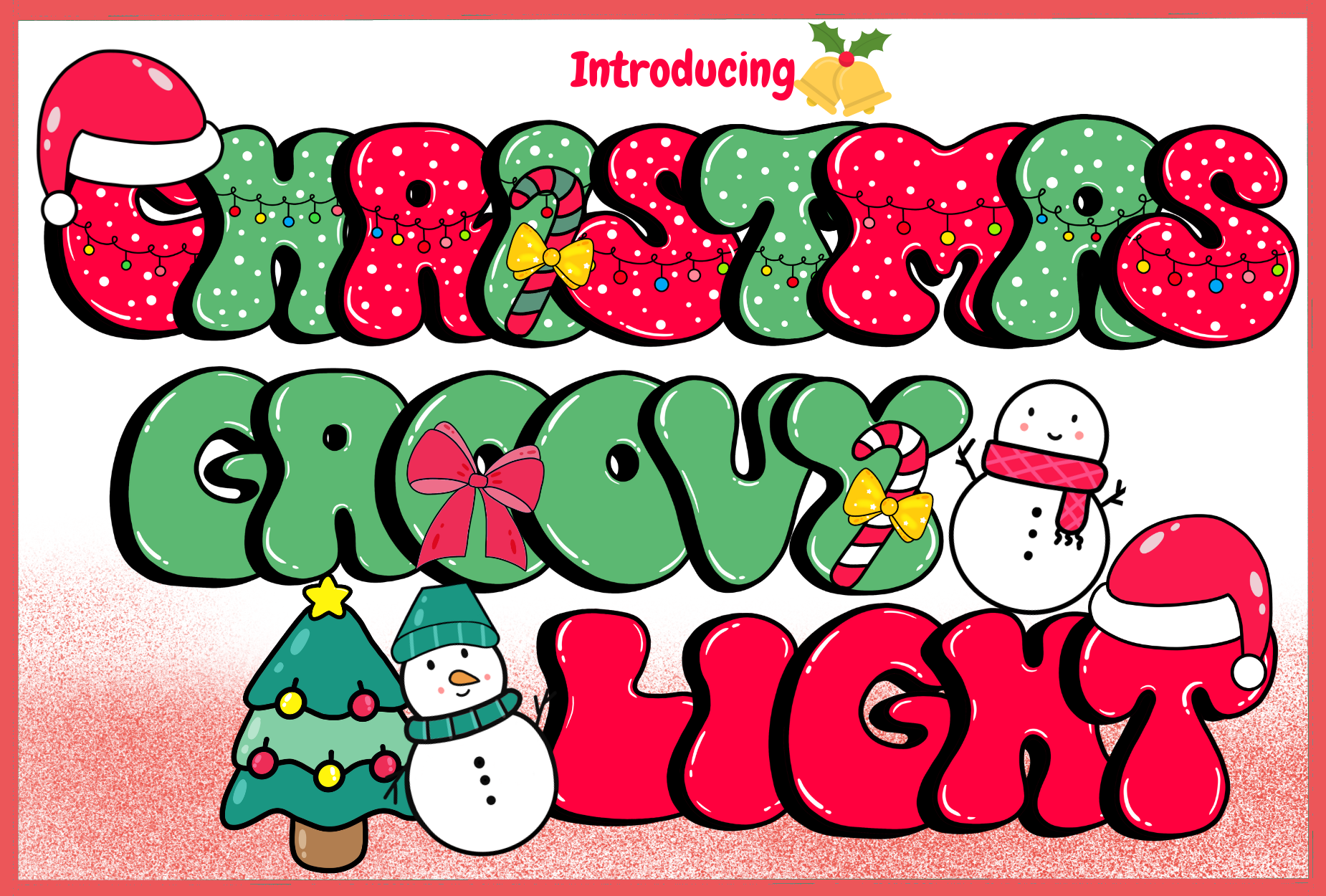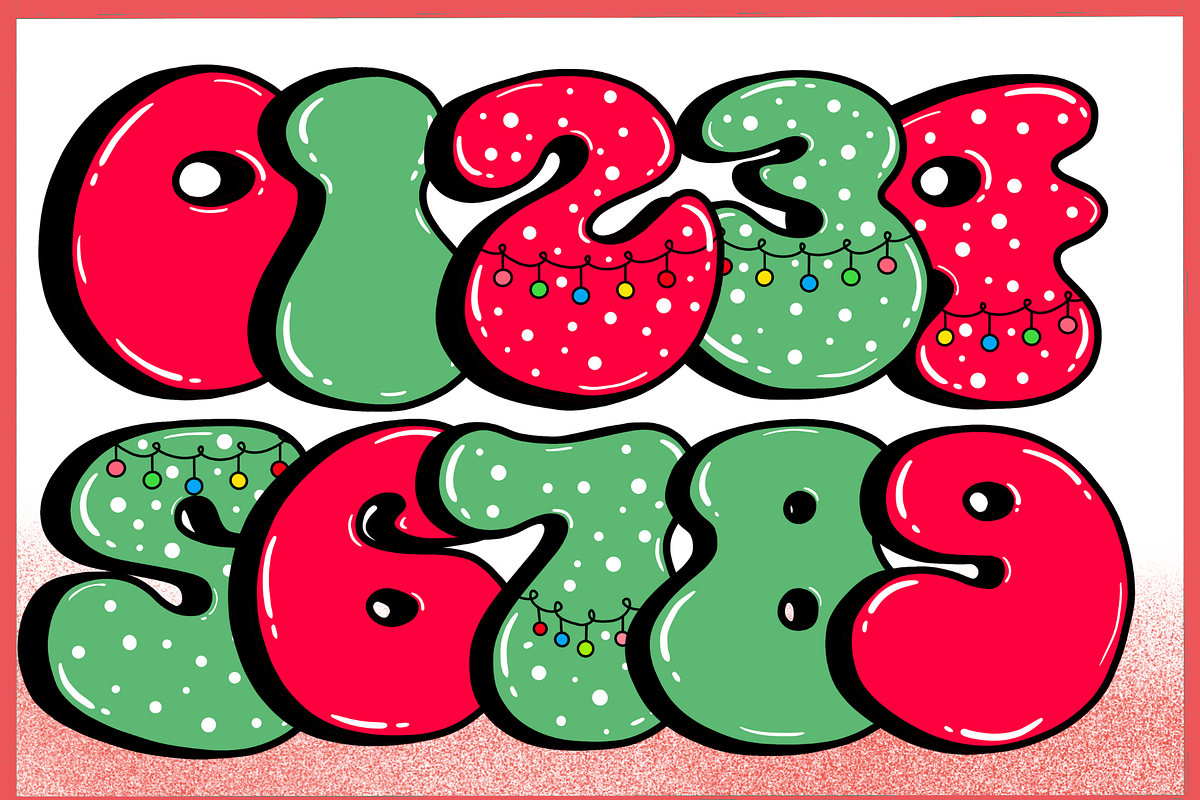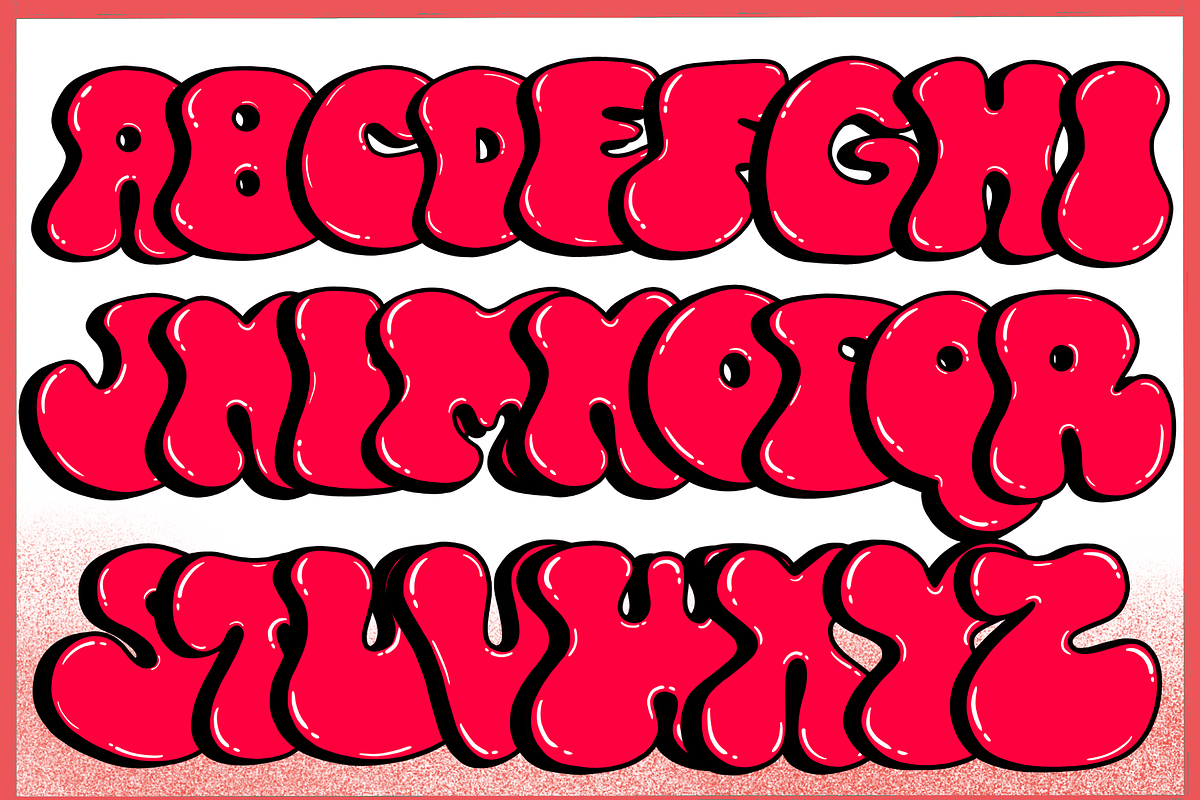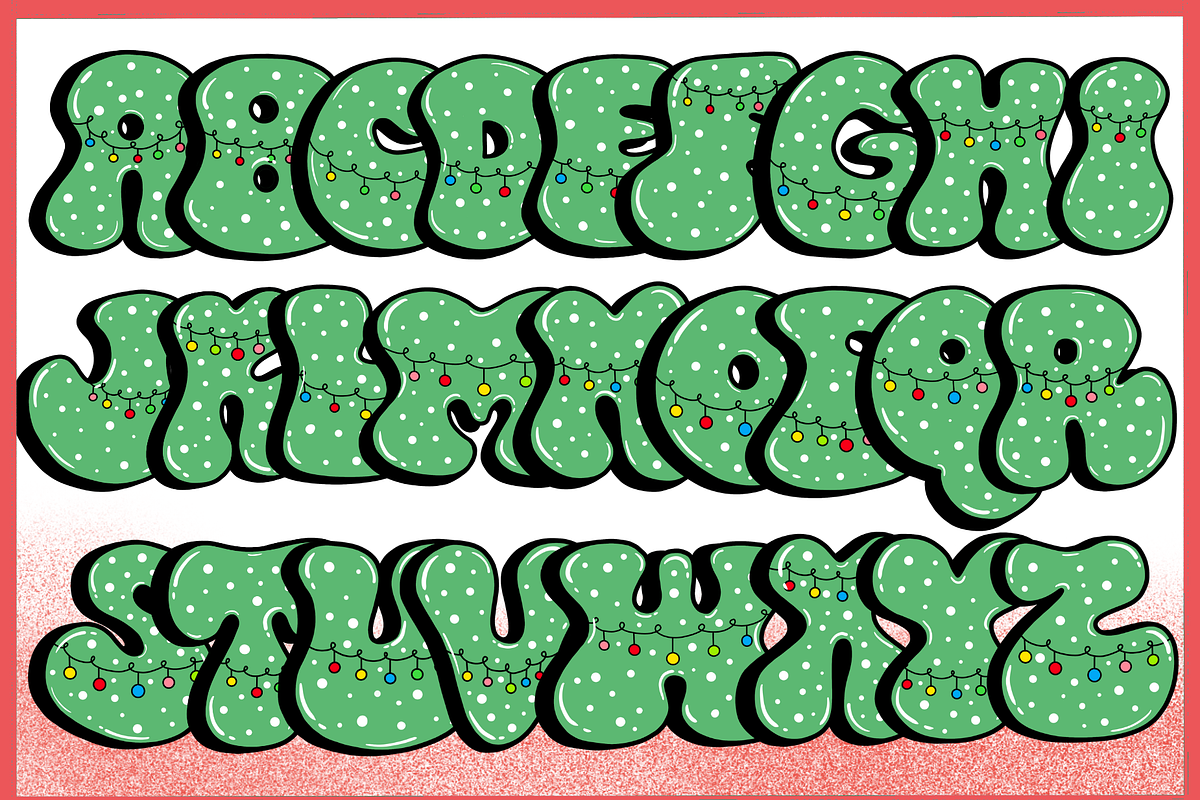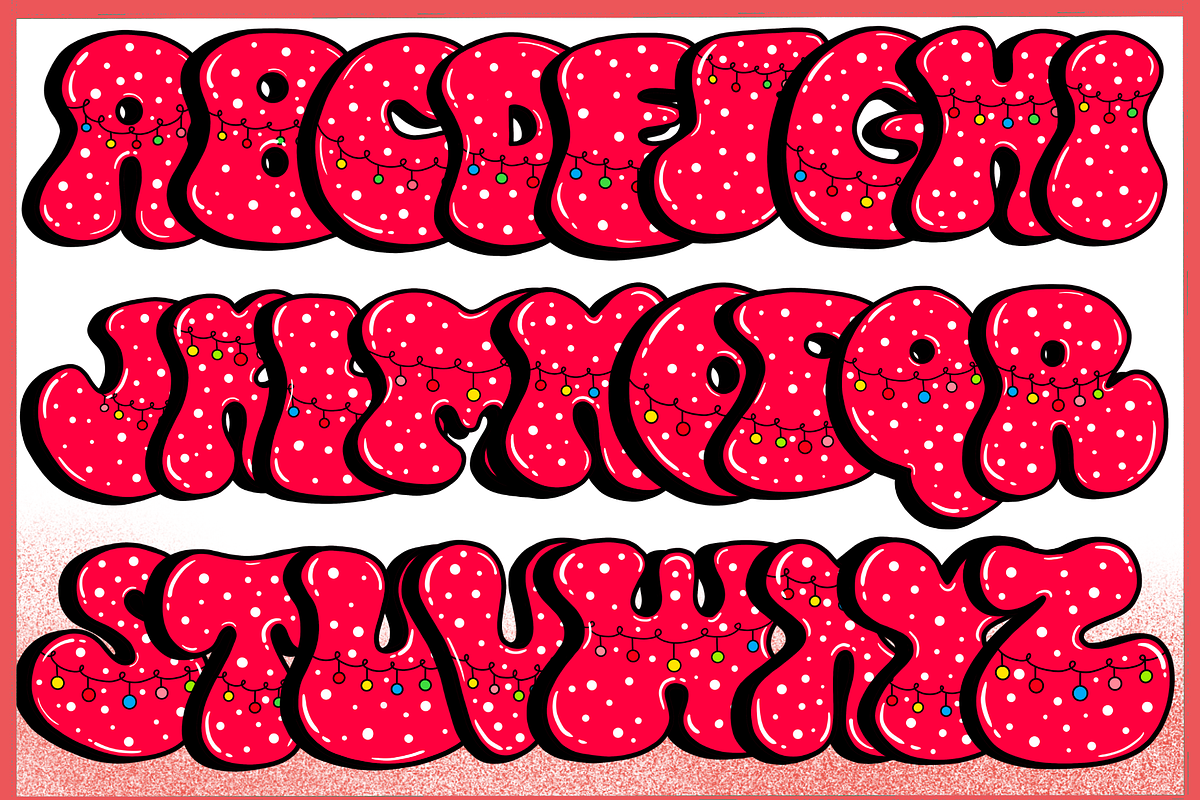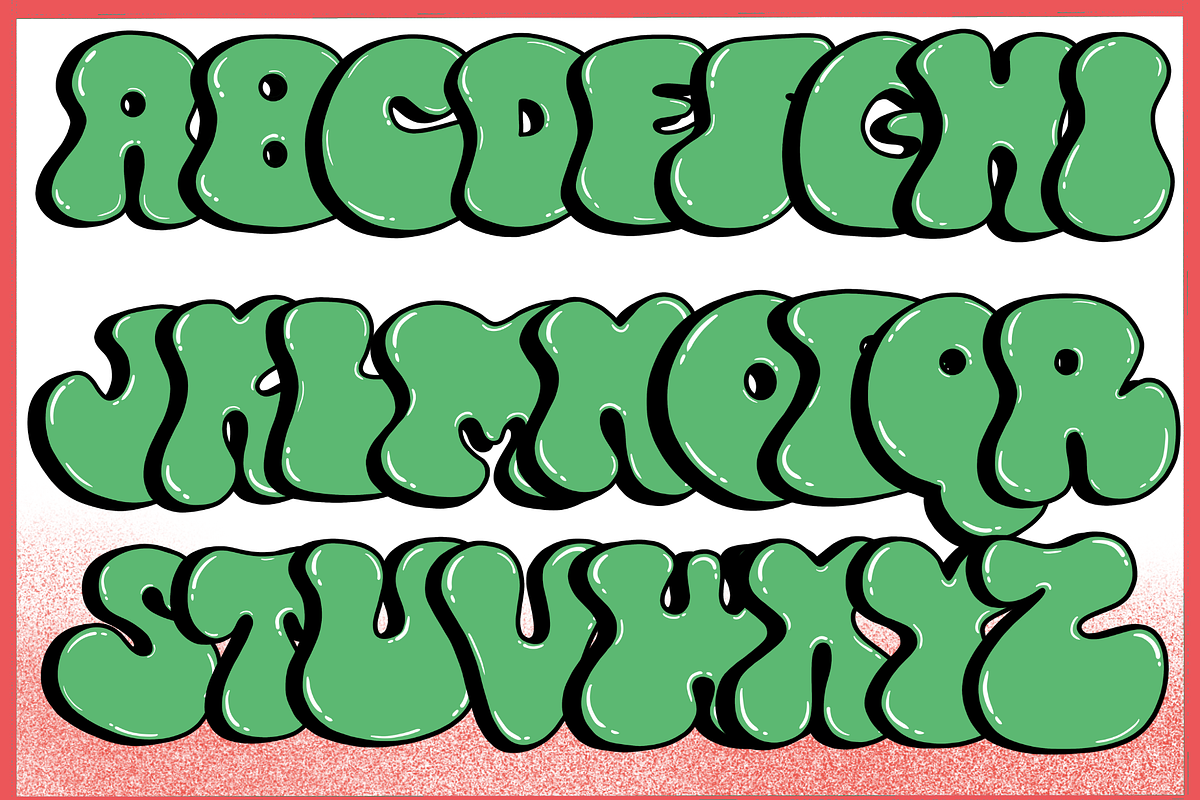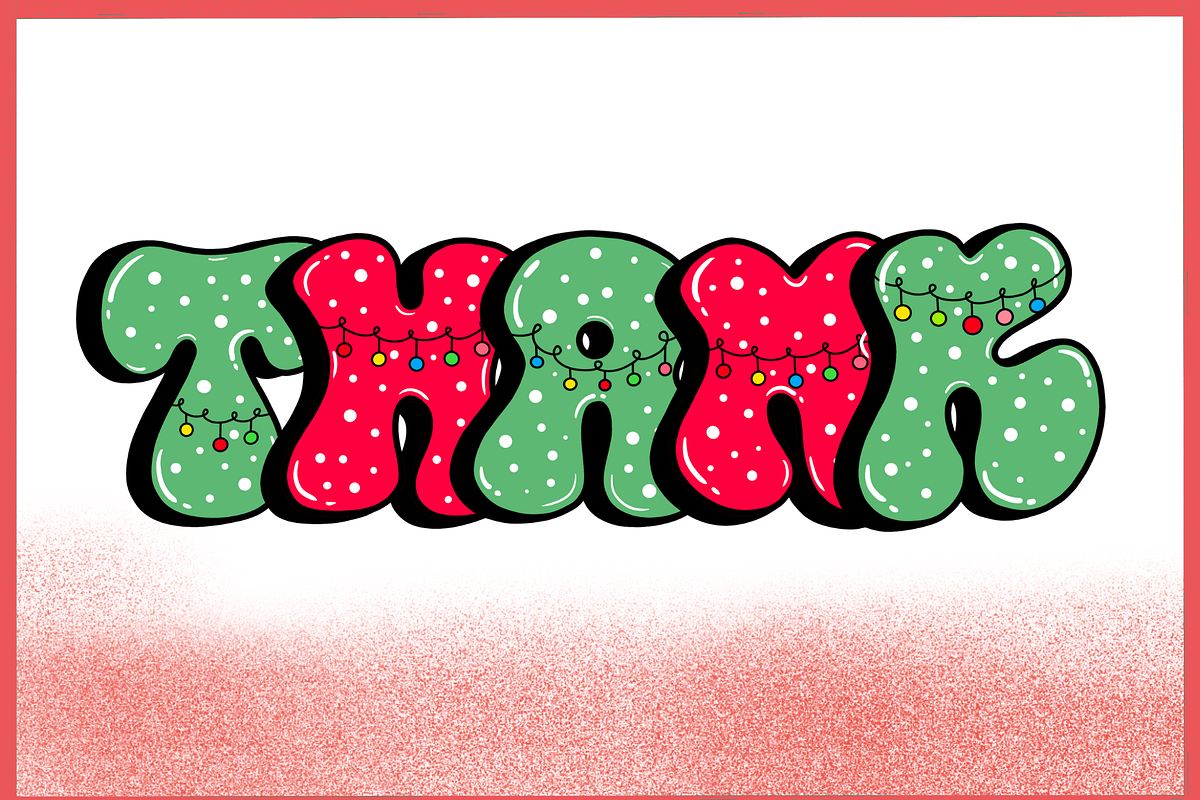
Christmas Groovy Light-PNG fonts
Christmas Groovy Light
Christmas Groovy Light is a fun, bubbly font with bright colors that make it perfect for the holidays. The letters are playful and give a retro, cheerful vibe, adding a groovy touch to any Christmas design. Ideal for festive cards, posters, and decorations!